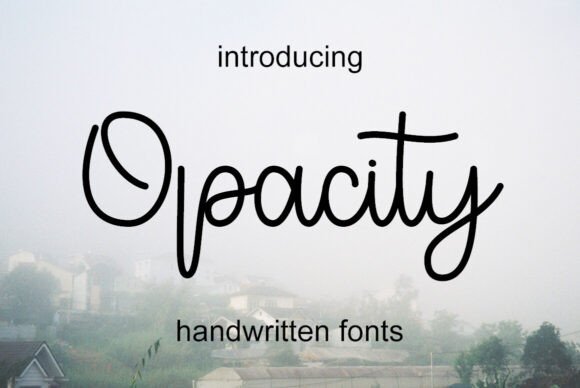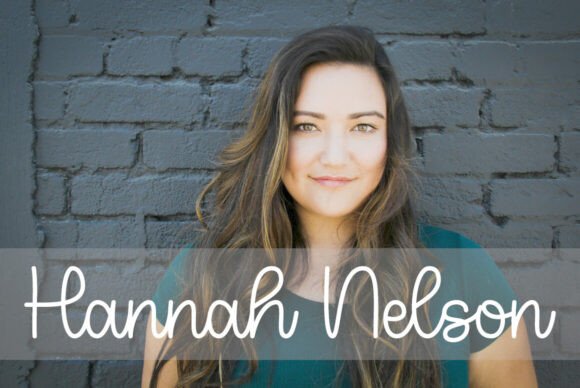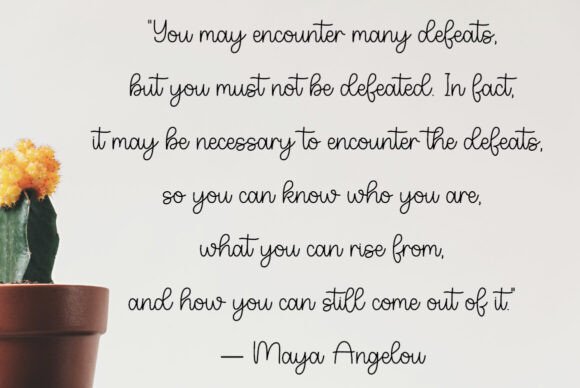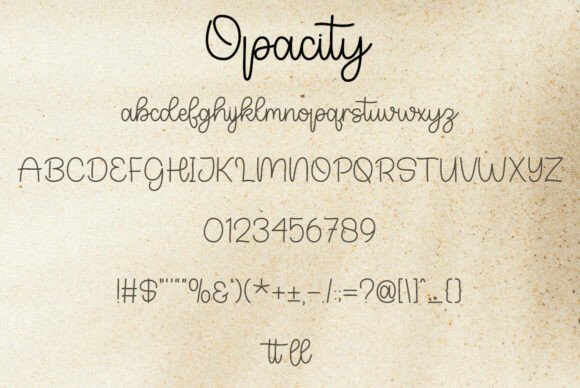
Opacity Font: A Delicate Handwritten Script for Elegant Branding
About the Opacity Font
The Opacity Font is here to transform your projects with its distinctive character and style. Meet Opacity – a font that encapsulates subtlety and sophistication with its delicate, handwritten strokes. The distinction and equilibrium in each letter make Opacity a work of art. Embrace its versatile appeal – an equally perfect choice whether you’re crafting an elegant invitation or sprucing up a futuristic digital design. Opacity, with its glorious adaptability, can breathe life into your most inventive designs, taking them to new, enchanting heights!
Opacity’s delicate nature makes it ideal for short headlines, logos, and invitations where its elegant handwritten quality shines. It works exceptionally well in branding for luxury goods, boutique hotels, or artisanal products. Avoid using Opacity for body text or large blocks of text; its intricate details become less legible at smaller sizes.
The font’s inherent sophistication is best complemented by pairings such as a clean sans-serif like Helvetica Neue for a modern contrast, or a classic serif like Garamond for a more traditional feel. A playful script font could also work well for secondary text elements, adding a layer of personality without overwhelming Opacity’s refined aesthetic.
Opacity projects an air of understated elegance and refined sophistication. Its subtle details and delicate strokes convey a sense of luxury and exclusivity, making it a strong choice for brands aiming for a premium image.
Opacity Font Usage Examples
Opacity Font Example